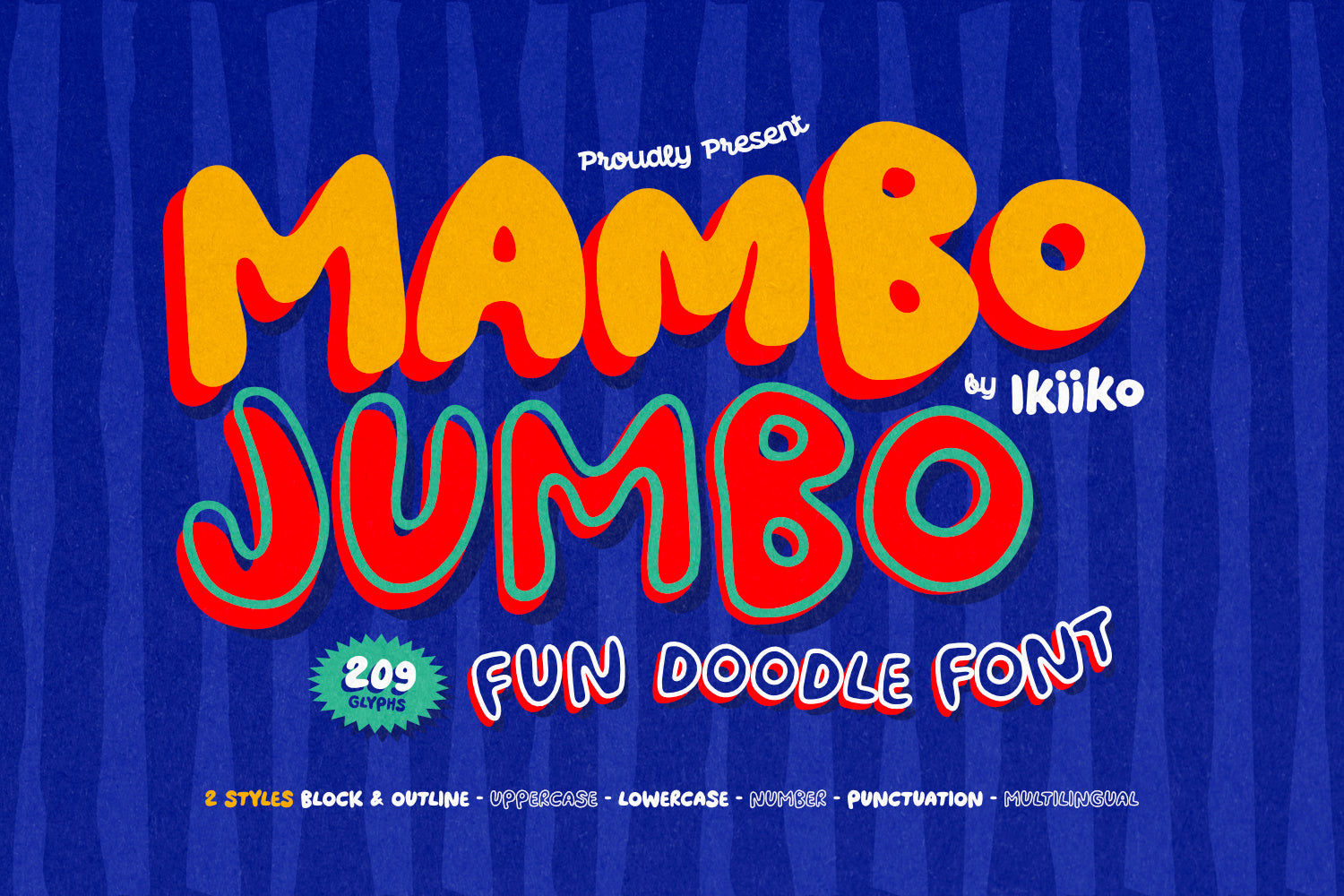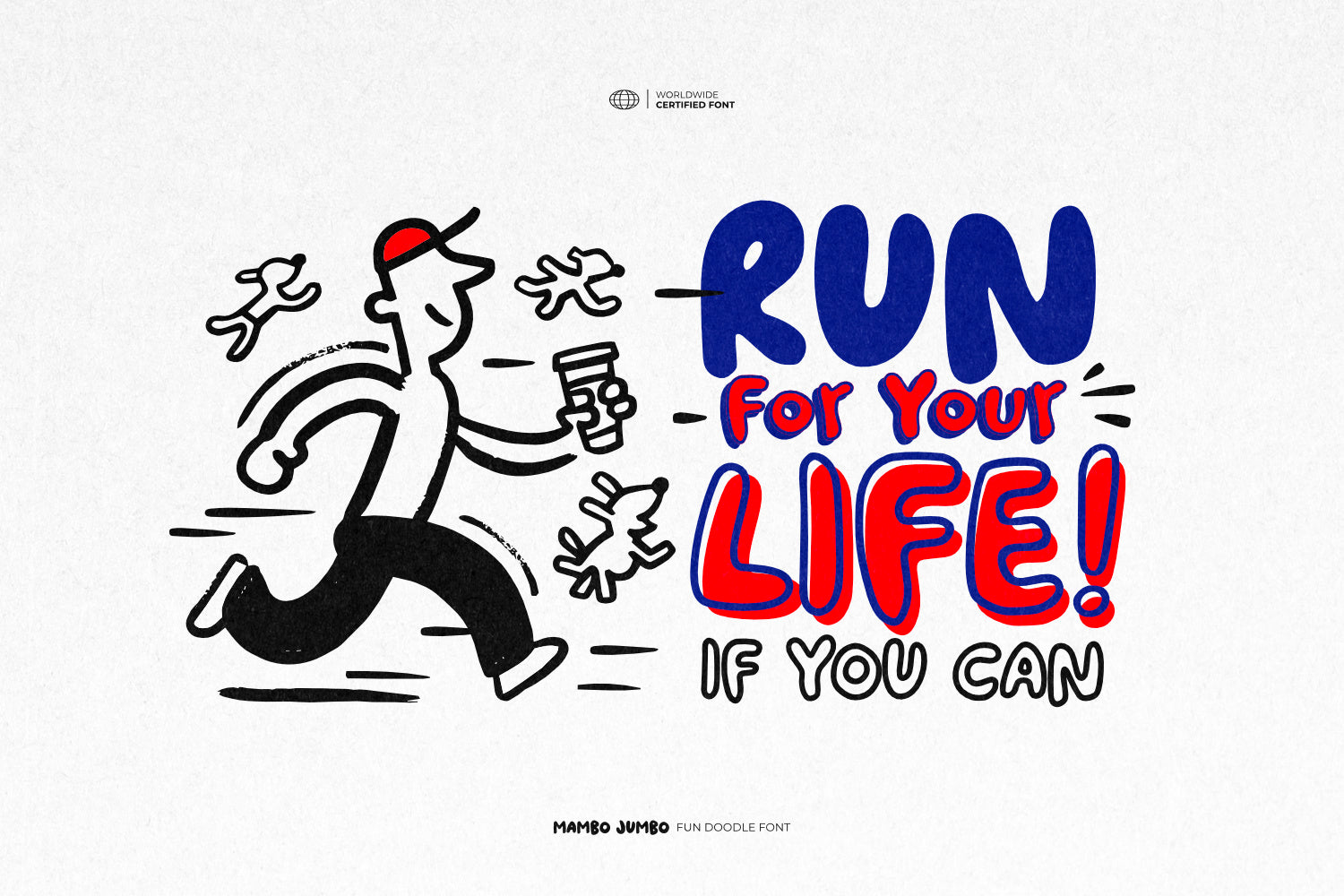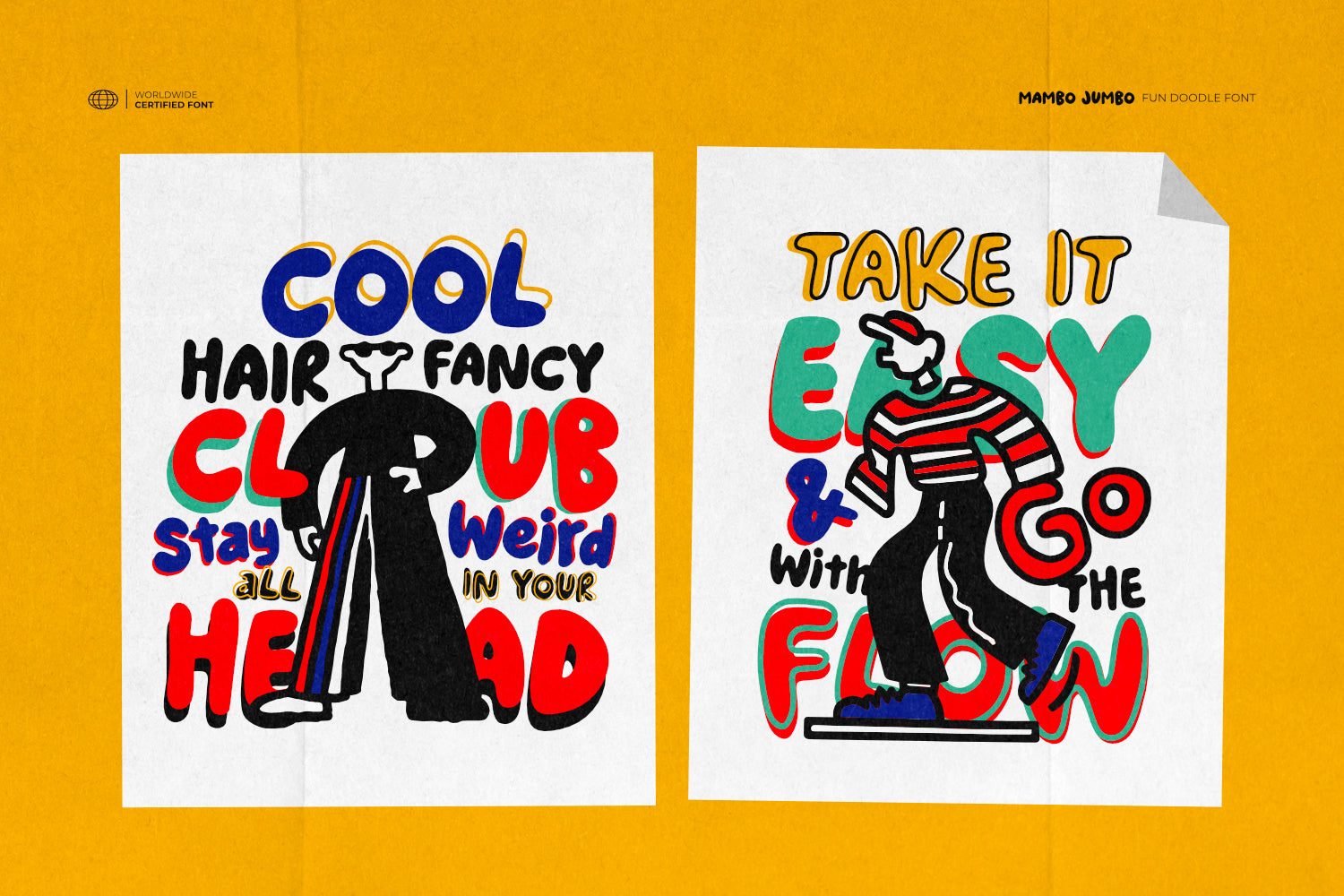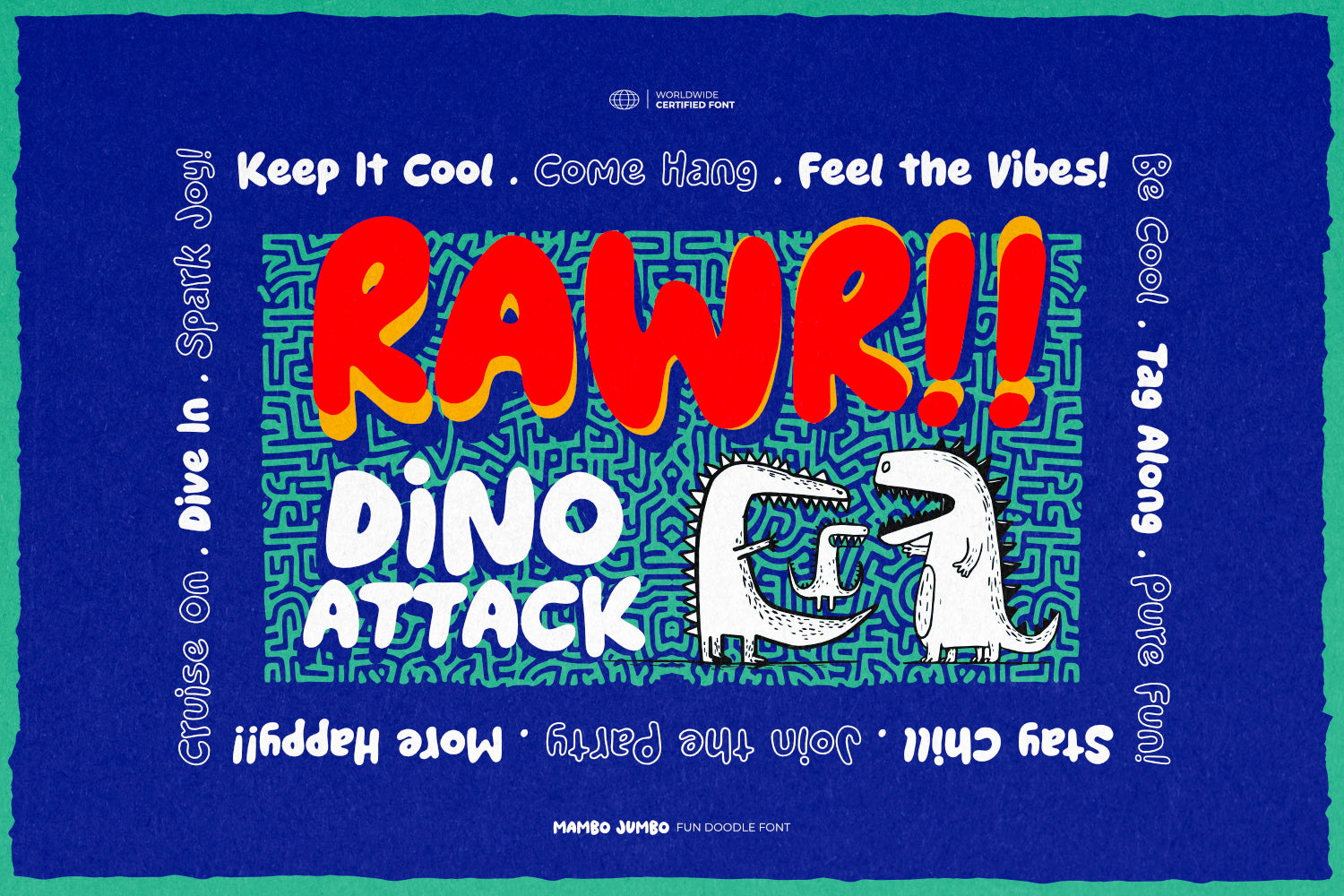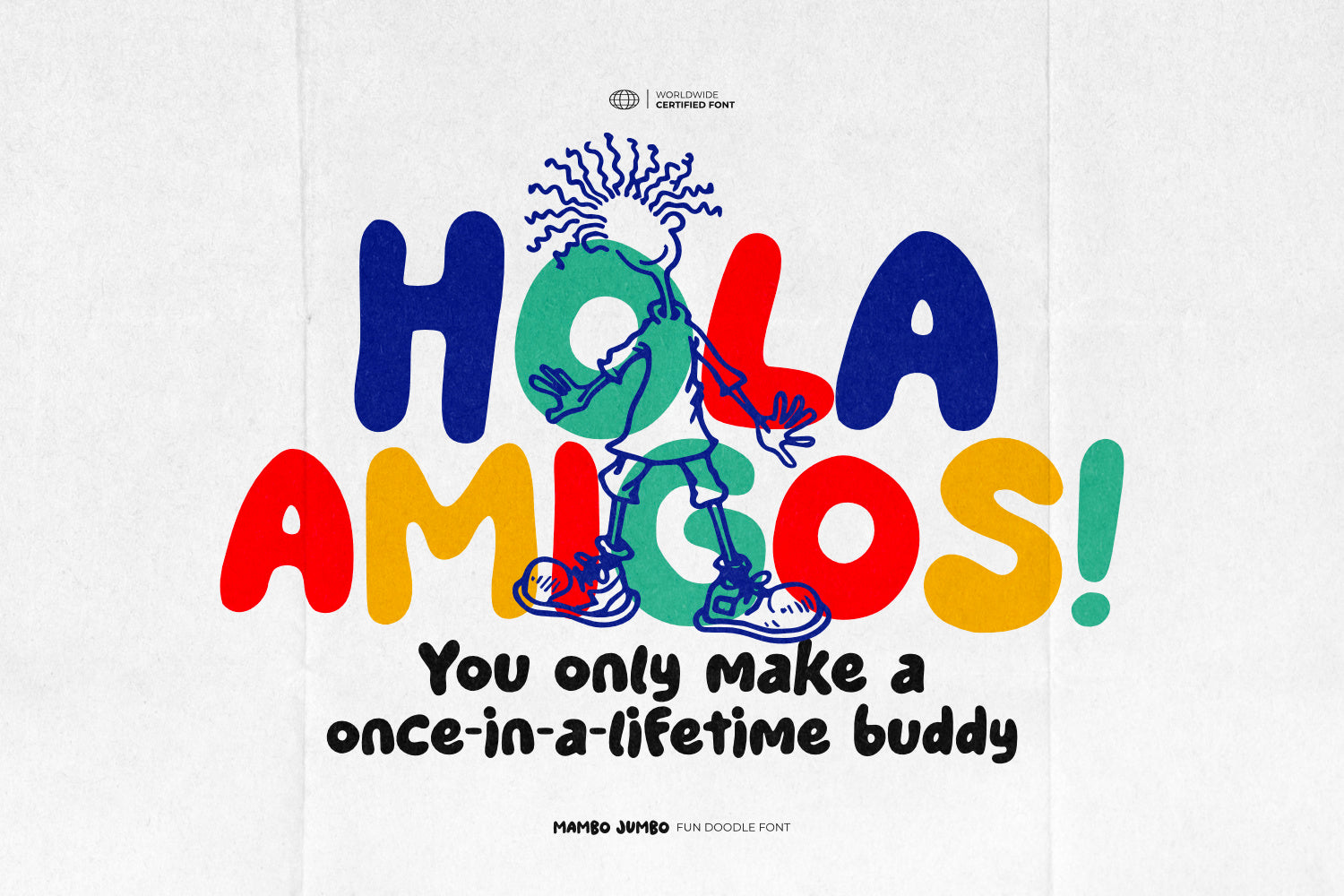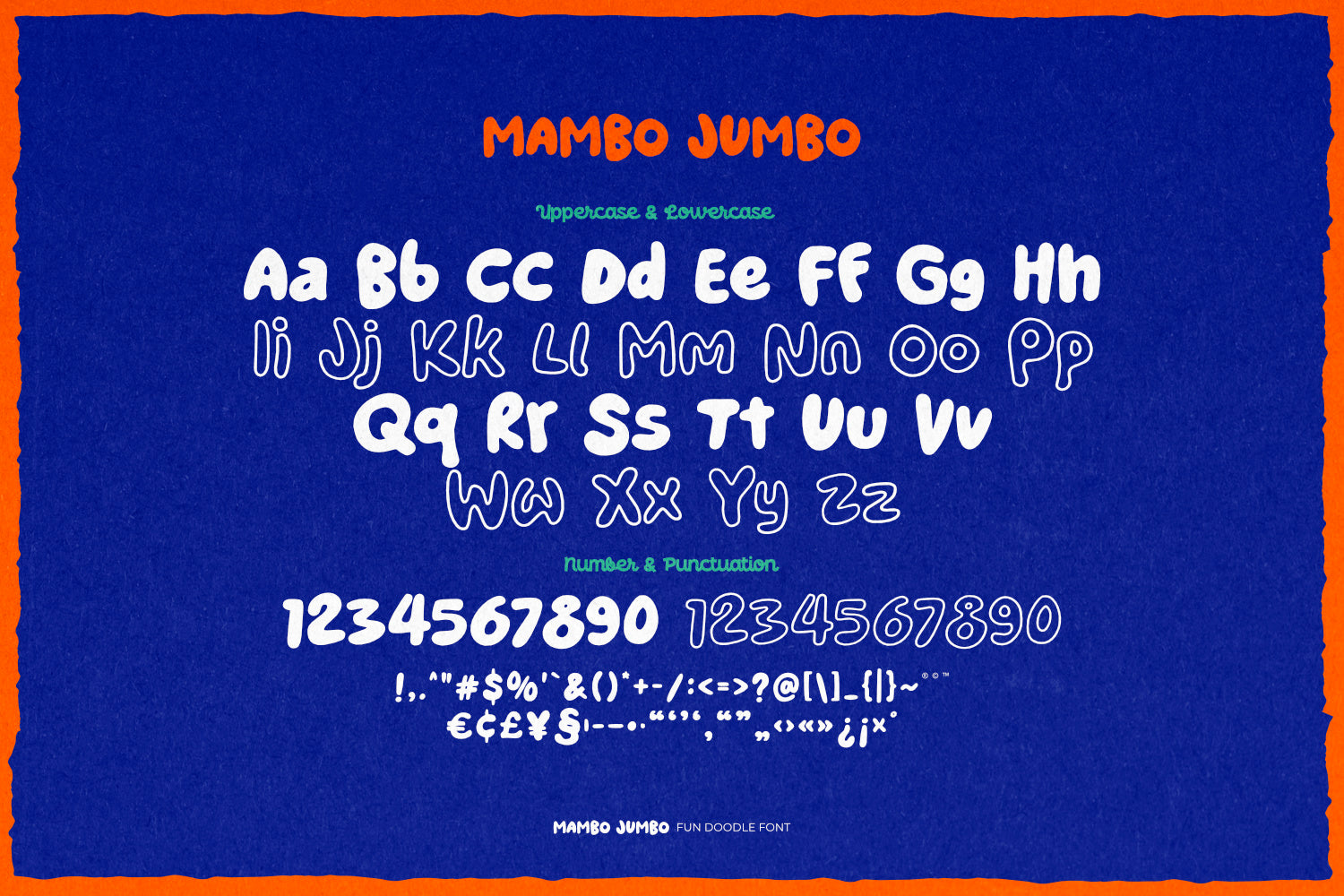
Proudly Present Mambo Jumbo - Fun Doodle Font, created by ikiiko
Meet Mambo Jumbo, a fun and playful doodle font made to spread smiles! With its quirky shapes and hand drawn style, this font is all about happy vibes, colorful energy, and a little bit of fancy fun. Perfect for kiddies' designs, cheerful logos, candy-themed, or anything that needs a pop of joy.
Each letter looks like it jumped out of a sketchbook—organic, bouncy, and full of life. It’s great for storybooks, party invites, social posts, or bold, playful headlines. If you love doodles, colors, and anything cute.
This font feels like childhood—scribbles, giggles, and sweet, creative chaos. Use it to make your design feel fun, friendly, and full of personality. Mambo Jumbo isn’t just a font—it’s a little celebration on every page!